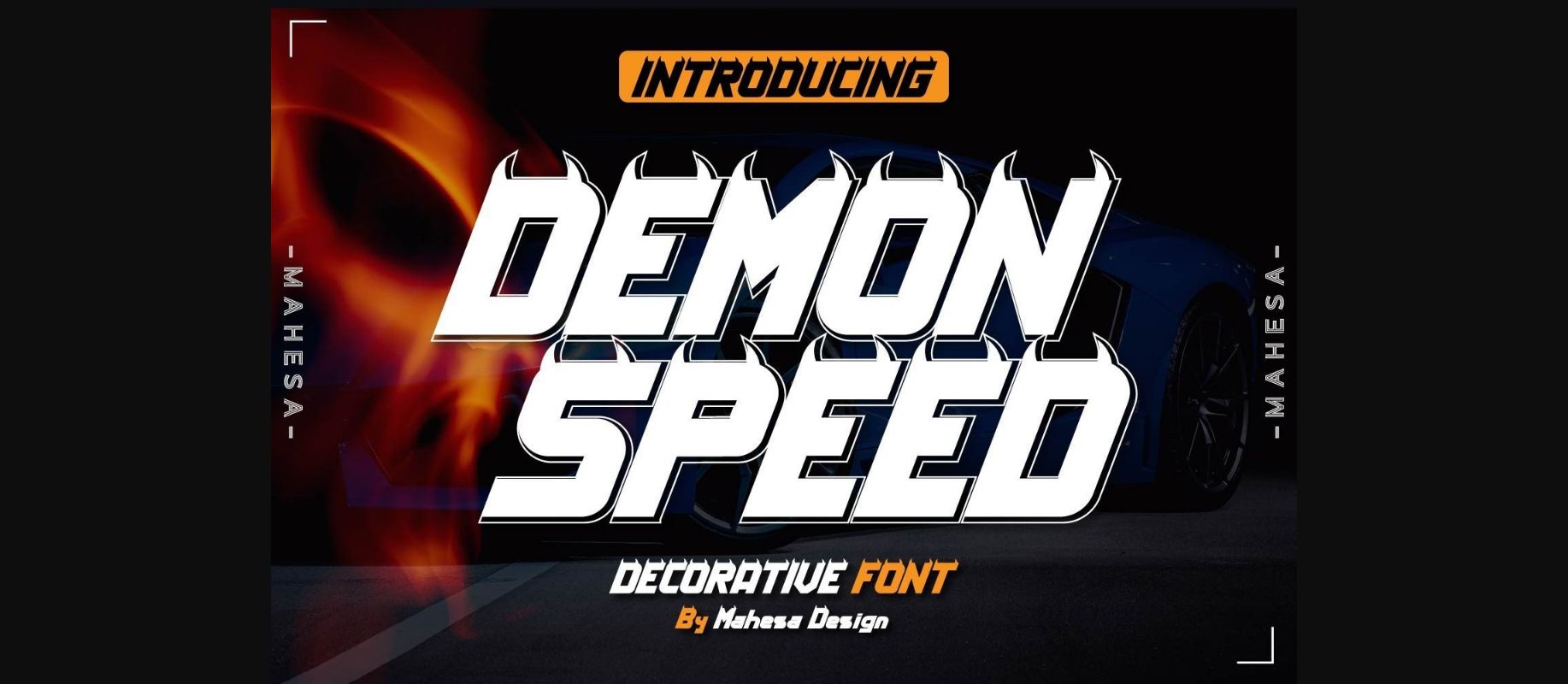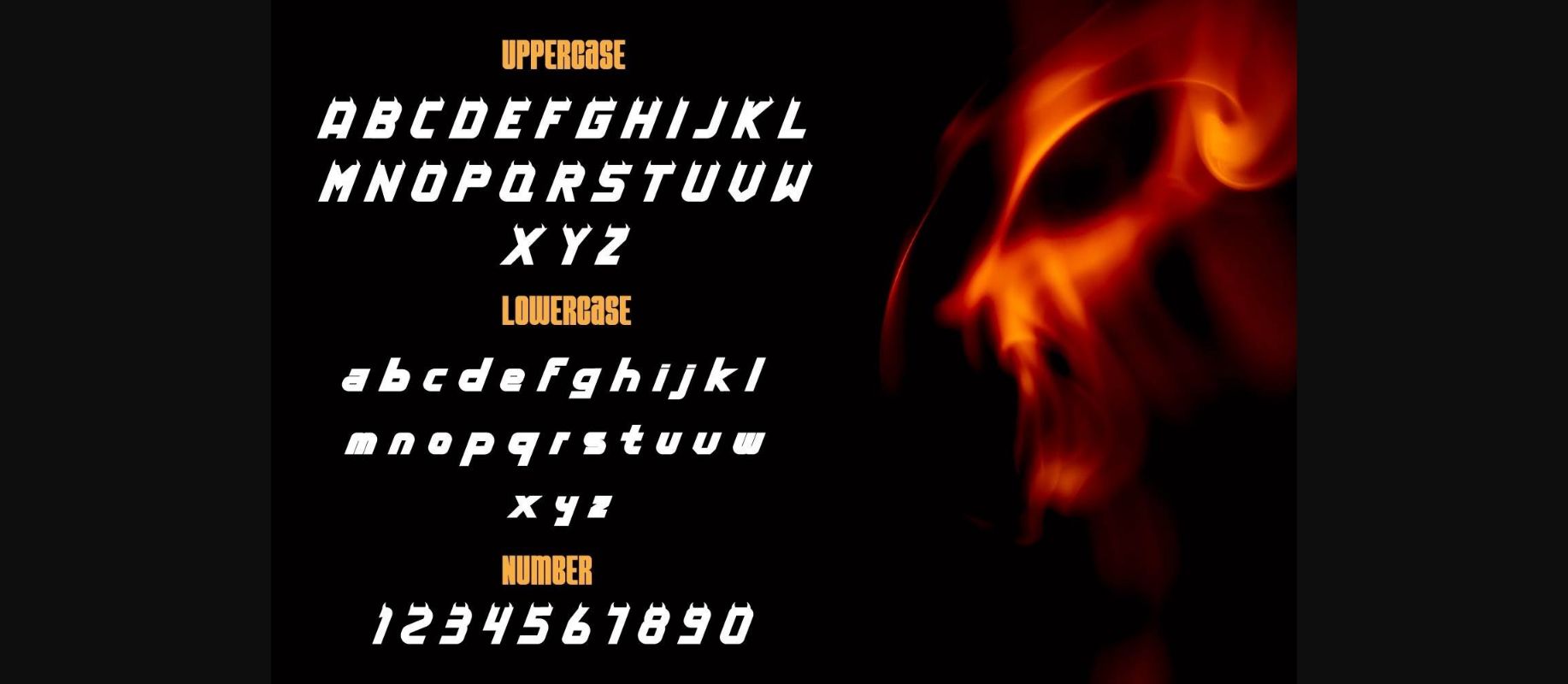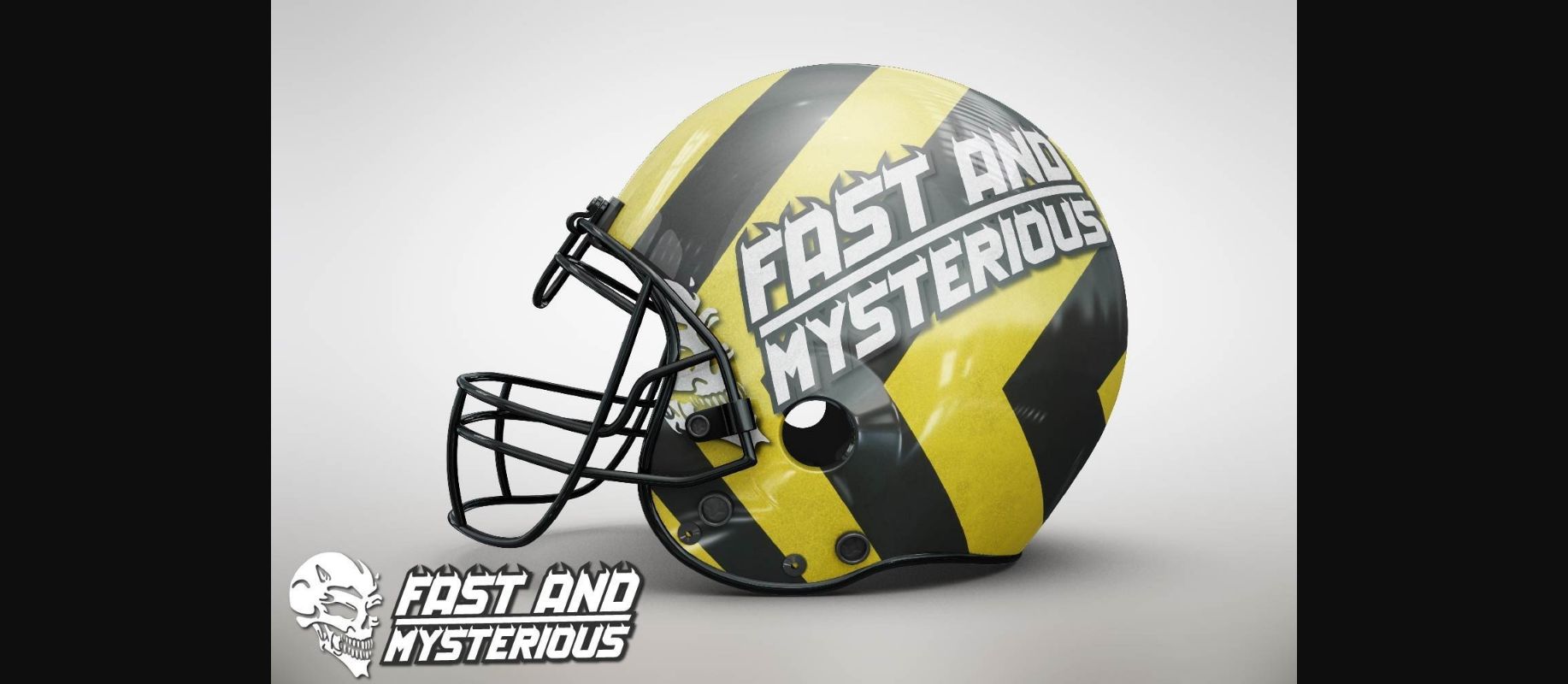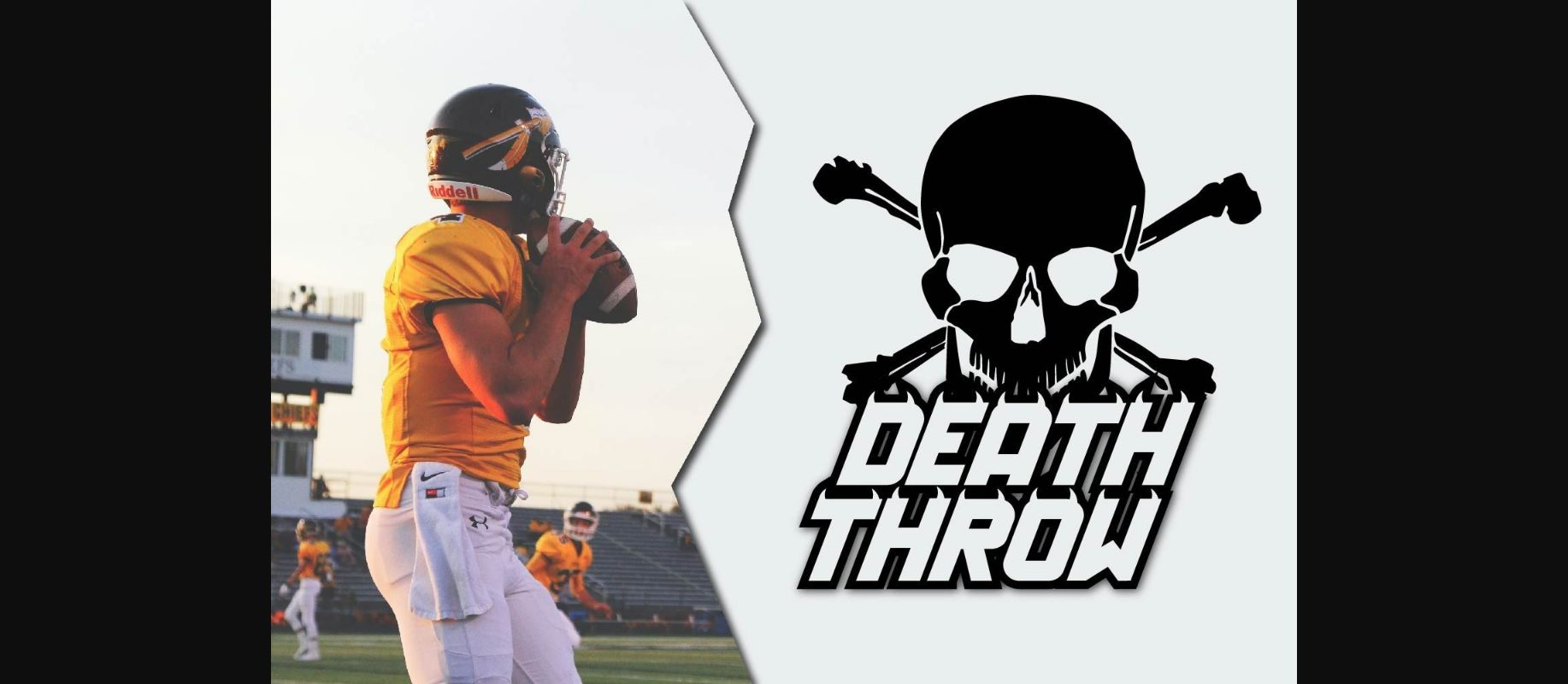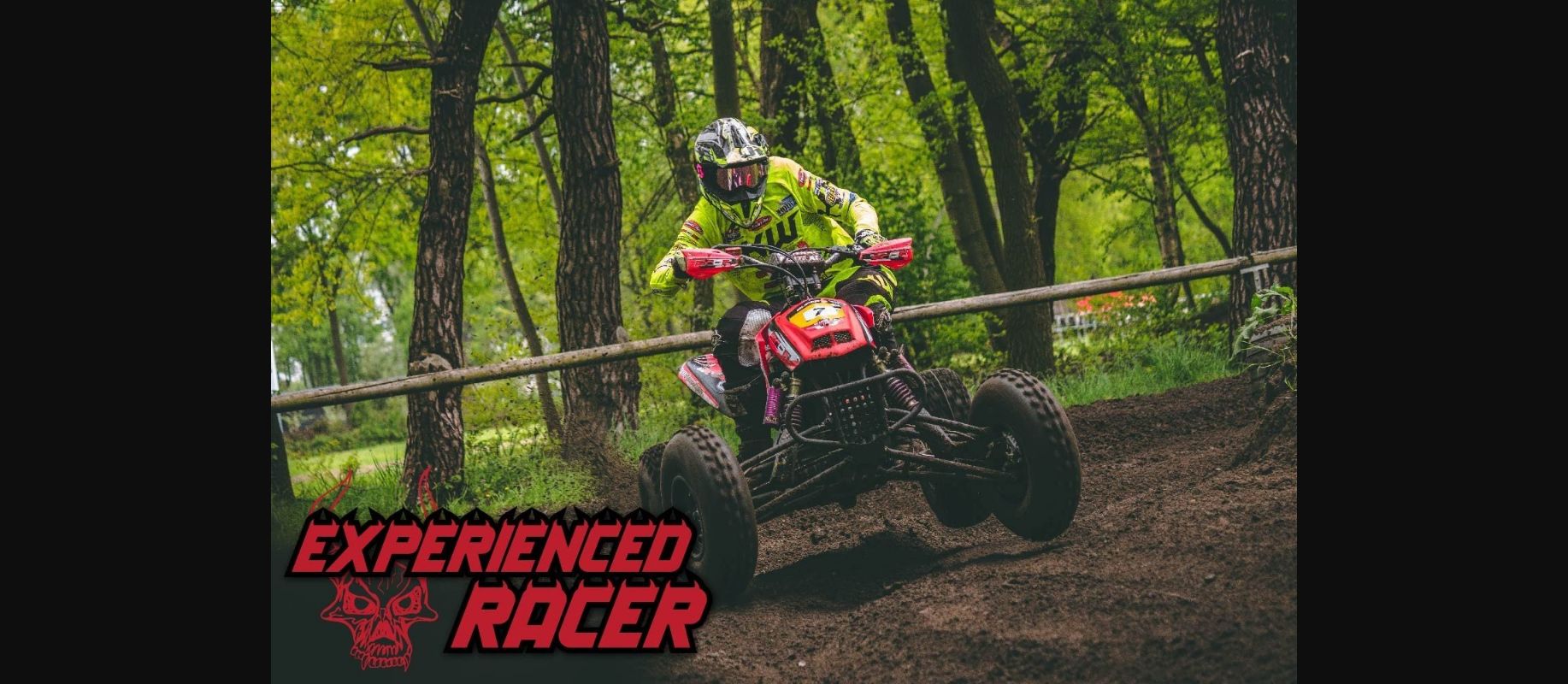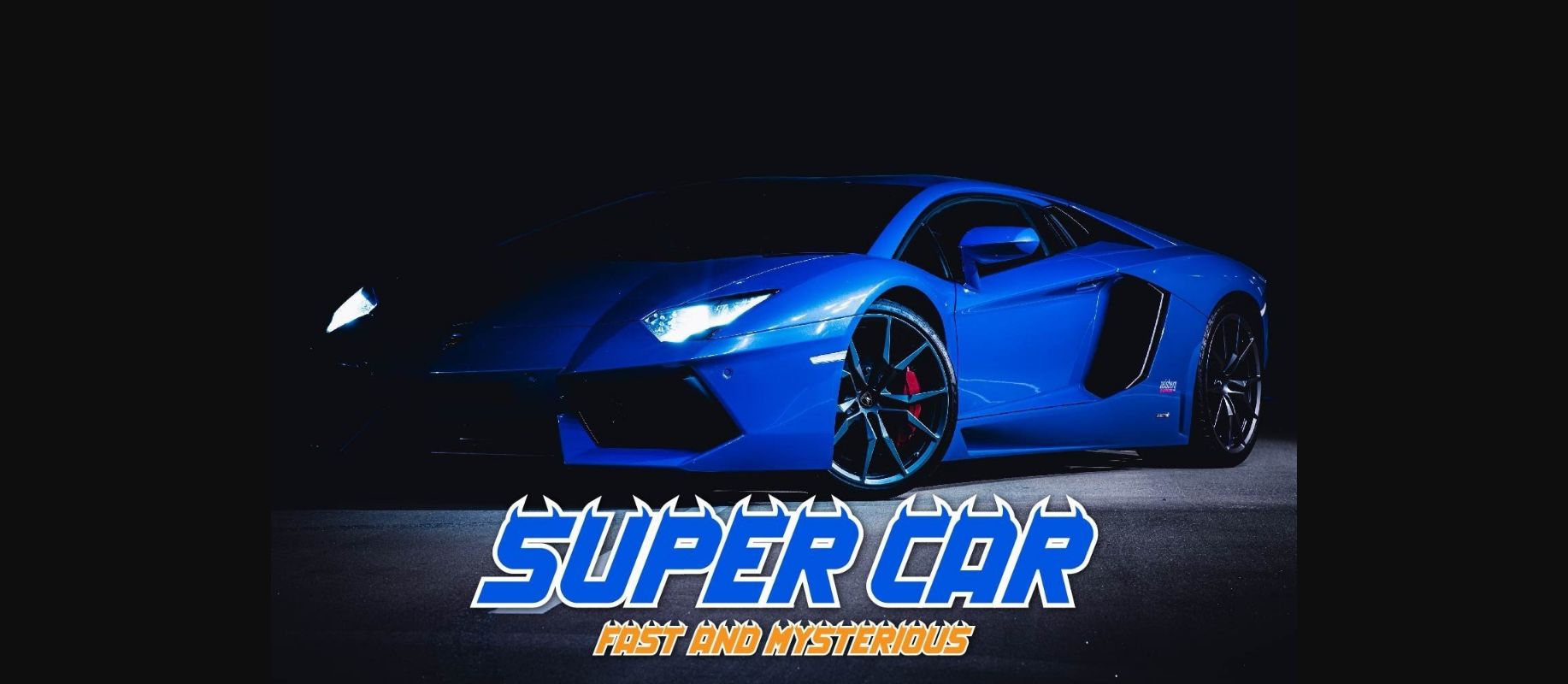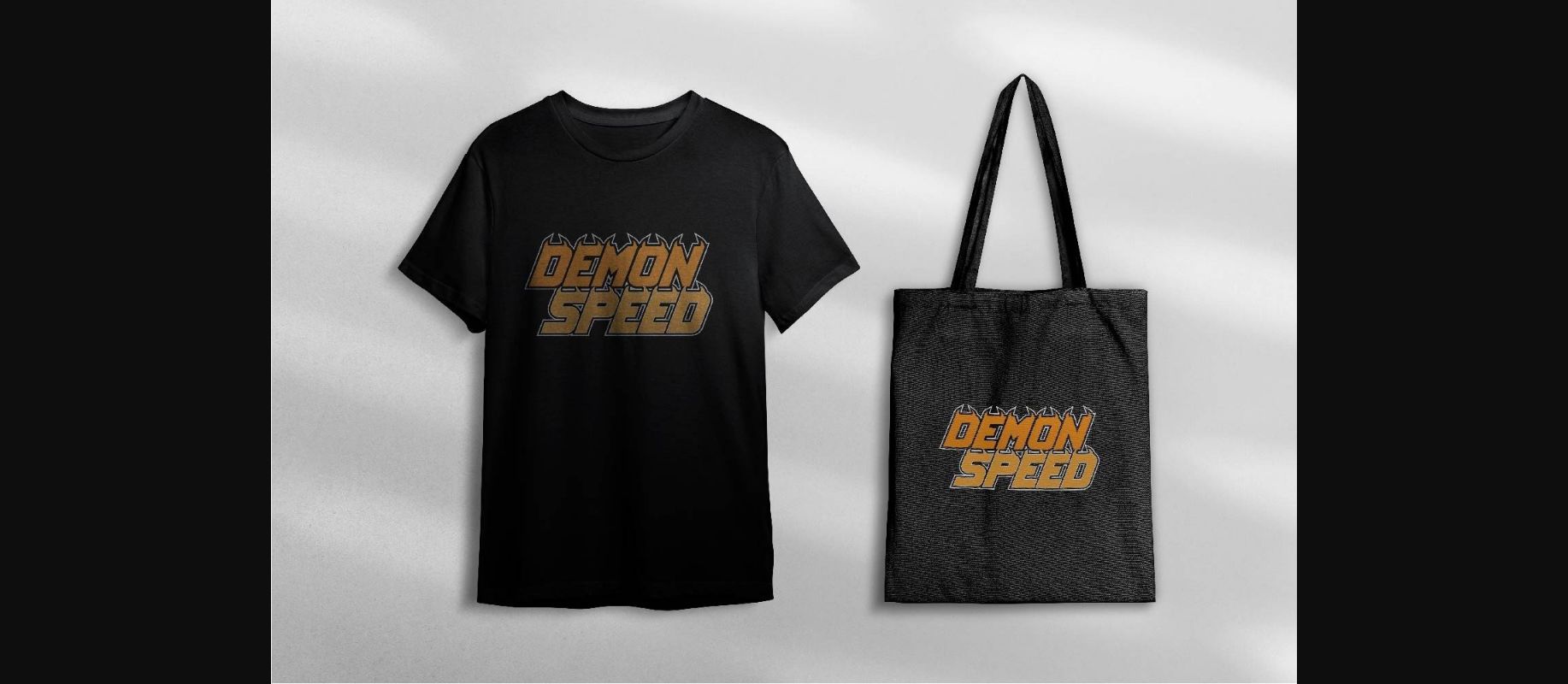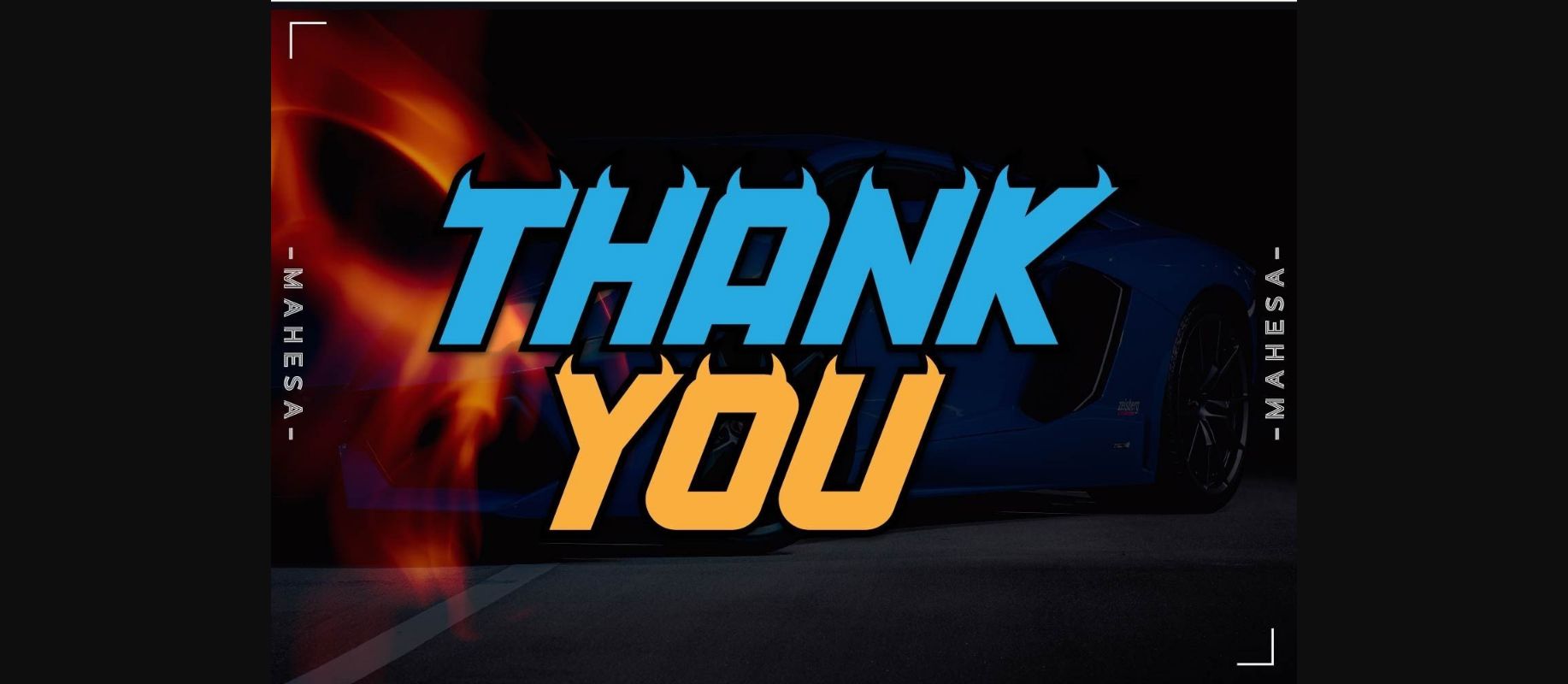
Demon Speed Font
About Demon Speed Font
Demon Speed is a unique and stunning Decorative font. It’s perfect for any branding project like logos, t-shirt printing, creative products, or just about anything that could benefit from a strong serif, clean vibe.